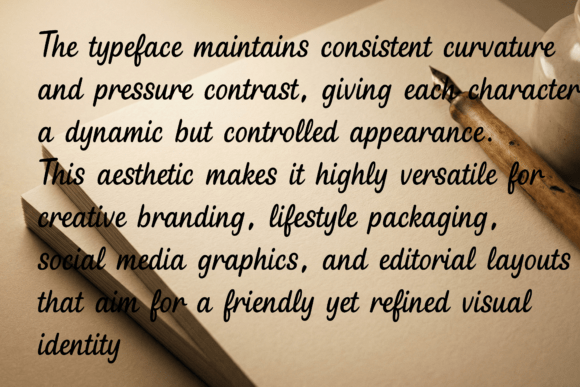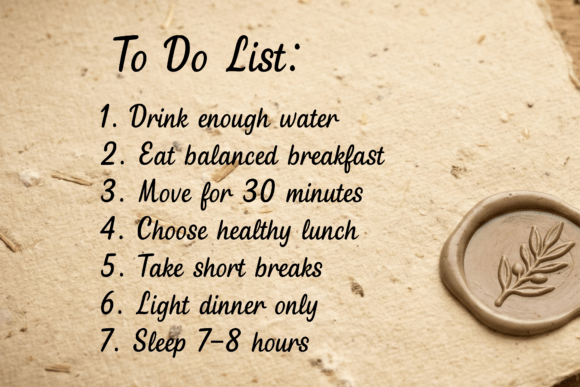
Discover the Elegance of Hand Kandel Letter Miring Font
Hand Kandel Letter Miring is a beautiful script typeface that embodies the perfect blend of confident strokes and a gentle, natural flow. This stunning font is designed to bring a touch of elegance and sophistication to various creative projects, making it an excellent choice for designers and crafters alike.
The Characteristics of Hand Kandel Letter Miring
Hand Kandel Letter Miring is defined by its smooth curves, consistent slanting motion, and a warm handwritten aesthetic that feels both expressive and controlled. The font’s overall character is a masterful blend of modern style and traditional charm, making it versatile enough to be used in a wide range of applications.
Smooth Curves and Consistent Slanting Motion
One of the standout features of Hand Kandel Letter Miring is its smooth curves and consistent slanting motion. These characteristics give the font a sense of fluidity and dynamism, making it perfect for creative layouts where movement and energy are desired. The smooth curves also contribute to the font’s readability, ensuring that text remains clear and easy to read, even at smaller sizes.
Warm Handwritten Aesthetic
The warm handwritten aesthetic of Hand Kandel Letter Miring is another key feature that sets it apart from other script typefaces. The font’s handcrafted charm is evident in each stroke, which carries a balanced weight that enhances readability while maintaining a personal touch. This makes the font ideal for projects where a friendly, approachable tone is desired, such as branding materials, product packaging, and editorial highlights.
The Benefits of Using Hand Kandel Letter Miring
Hand Kandel Letter Miring offers a range of benefits for designers and crafters, including:
- Elegance and sophistication: The font’s smooth curves and consistent slanting motion give it a refined, elegant appearance that’s perfect for high-end branding and creative projects.
- Readability: The balanced weight of each stroke and the font’s clear letterforms ensure that text remains easy to read, even at smaller sizes.
- Versatility: Hand Kandel Letter Miring is suitable for a wide range of applications, from digital posters and typographic quotes to lifestyle content and product packaging.
- Unique character: The font’s handcrafted charm and warm handwritten aesthetic give it a unique character that sets it apart from other script typefaces.
Applications for Hand Kandel Letter Miring
Hand Kandel Letter Miring is a versatile font that can be used in a variety of creative projects, including:
- Branding materials: The font’s elegant appearance and friendly tone make it perfect for logos, business cards, and other branding materials.
- Product packaging: Hand Kandel Letter Miring’s refined appearance and clear letterforms make it suitable for product packaging, where readability and style are essential.
- Editorial highlights: The font’s smooth curves and consistent slanting motion make it ideal for editorial highlights, such as article titles and headings.
- Digital posters: Hand Kandel Letter Miring’s elegant appearance and dynamic feel make it perfect for digital posters and other visual displays.
- Typographic quotes: The font’s handcrafted charm and warm handwritten aesthetic make it suitable for typographic quotes and other creative text-based projects.
- Lifestyle content: Hand Kandel Letter Miring’s friendly tone and refined appearance make it ideal for lifestyle content, such as blog posts and social media updates.
| Author | Font Seven |
Hand Kandel Letter Miring is a stunning script typeface that offers a unique blend of elegance, sophistication, and friendliness. Its smooth curves, consistent slanting motion, and warm handwritten aesthetic make it perfect for a wide range of creative projects, from branding materials and product packaging to editorial highlights and digital posters. With its versatility, readability, and unique character, Hand Kandel Letter Miring is an excellent choice for designers and crafters looking to add a touch of elegance and style to their work.